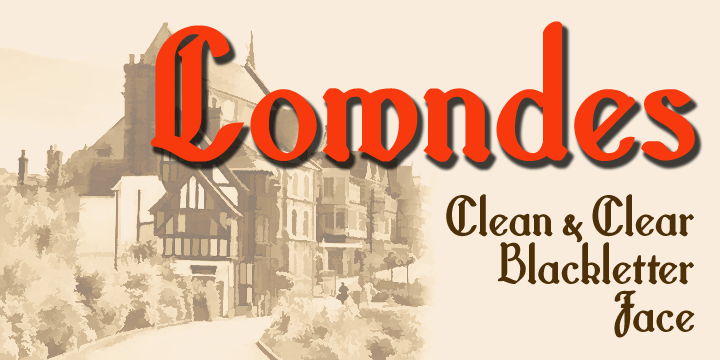
Lowndes
Designed by: Paul James Lloyd
Lowndes
Lowndes is designed as a Blackletter display face with a spirit of fun rather than historical accuracy, and with an emphasis on legibility and clarity.
It’s ideal for festive design such as cards, posters etc...